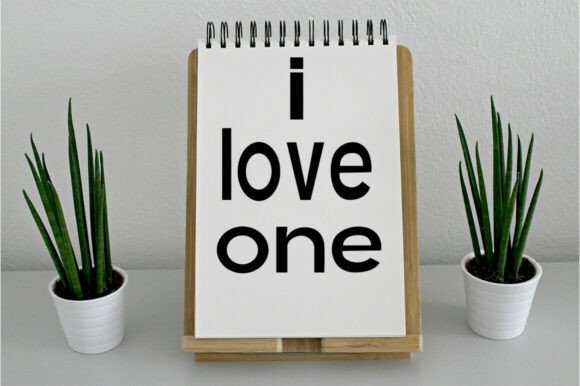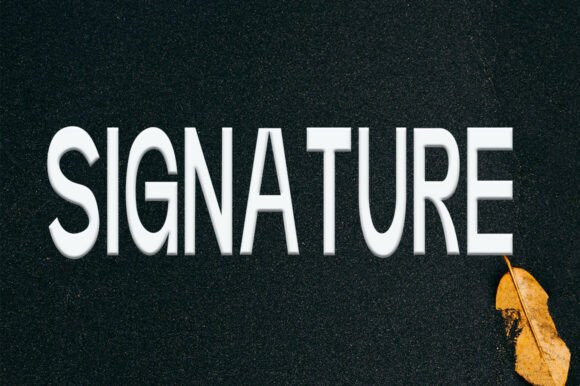
Discover the Charm of Elizabeth Font: A Modern Sans-Serif Marvel
Are you on the hunt for a font that embodies modern simplicity, charm, and playfulness? Look no further than Elizabeth Font, a clean, geometric, and delightful sans-serif typeface that’s perfect for a wide range of design projects. In this article, we’ll dive into the world of Elizabeth Font, exploring its unique features, uses, and benefits for designers and crafters alike.
The Elizabeth Font Difference: Clean, Geometric, and Playful
Elizabeth Font is a masterclass in modern typography, boasting tall letterforms, sharp lines, and a crisp, clean aesthetic that’s sure to captivate audiences of all ages. Its geometric design ensures a sense of stability and structure, while its playful undertones inject a dose of fun and approachability. This winning combination makes Elizabeth Font an excellent choice for a variety of applications, from titles and posters to children’s content and creative branding.
Key Features of Elizabeth Font
- Tall Letterforms: Elizabeth Font’s elongated letters create a sense of elegance and sophistication, making it perfect for headlines, titles, and signage.
- Sharp Lines: The font’s sharp lines and clean edges give it a modern, edgy feel that’s sure to grab attention.
- Playful Undertones: Elizabeth Font’s playful personality shines through in its subtle quirks and charming details, making it an excellent choice for children’s content and creative branding.
Using Elizabeth Font in Your Design Projects
Elizabeth Font’s versatility is one of its greatest strengths, making it suitable for a wide range of design projects. Here are just a few ideas to get you started:
- Posters and Flyers: Elizabeth Font’s bold, eye-catching design makes it perfect for posters and flyers that need to stand out.
- Children’s Content: The font’s playful personality and clean design make it an excellent choice for children’s books, educational materials, and kids’ websites.
- Creative Branding: Elizabeth Font’s modern simplicity and charm make it an excellent choice for branding and packaging design, particularly for lifestyle, fashion, and beauty brands.
- Invitations and Signage: The font’s elegant, sophisticated design makes it perfect for formal and informal invitations, as well as bold signage and display graphics.
Benefits of Using Elizabeth Font
So why choose Elizabeth Font for your design projects? Here are just a few benefits to consider:
- Unique Personality: Elizabeth Font brings a vibrant, approachable personality to your work, setting it apart from more generic typefaces.
- Versatility: The font’s clean design and playful undertones make it suitable for a wide range of applications, from formal to informal.
- Easy to Read: Elizabeth Font’s clear, geometric design ensures excellent legibility, even at smaller sizes.
| Font Name | Elizabeth Font |
| Author | Hendrik studio |
Elizabeth Font is a modern sans-serif marvel that’s sure to delight designers and crafters alike. Its unique blend of clean geometry, playful undertones, and charming details makes it an excellent choice for a wide range of design projects. Whether you’re creating titles, posters, children’s content, or creative branding, Elizabeth Font is sure to bring a vibrant, approachable personality to your work. So why not give it a try and discover the charm of Elizabeth Font for yourself?
- Experiment with Different Sizes: Elizabeth Font’s clean design and excellent legibility make it suitable for a wide range of sizes, from large headlines to smaller body text.
- Pair with Other Fonts: Don’t be afraid to experiment with pairing Elizabeth Font with other typefaces to create unique and interesting visual combinations.
With its unique personality, versatility, and ease of use, Elizabeth Font is sure to become a go-to choice for designers and crafters looking to add a touch of modern simplicity and charm to their work.